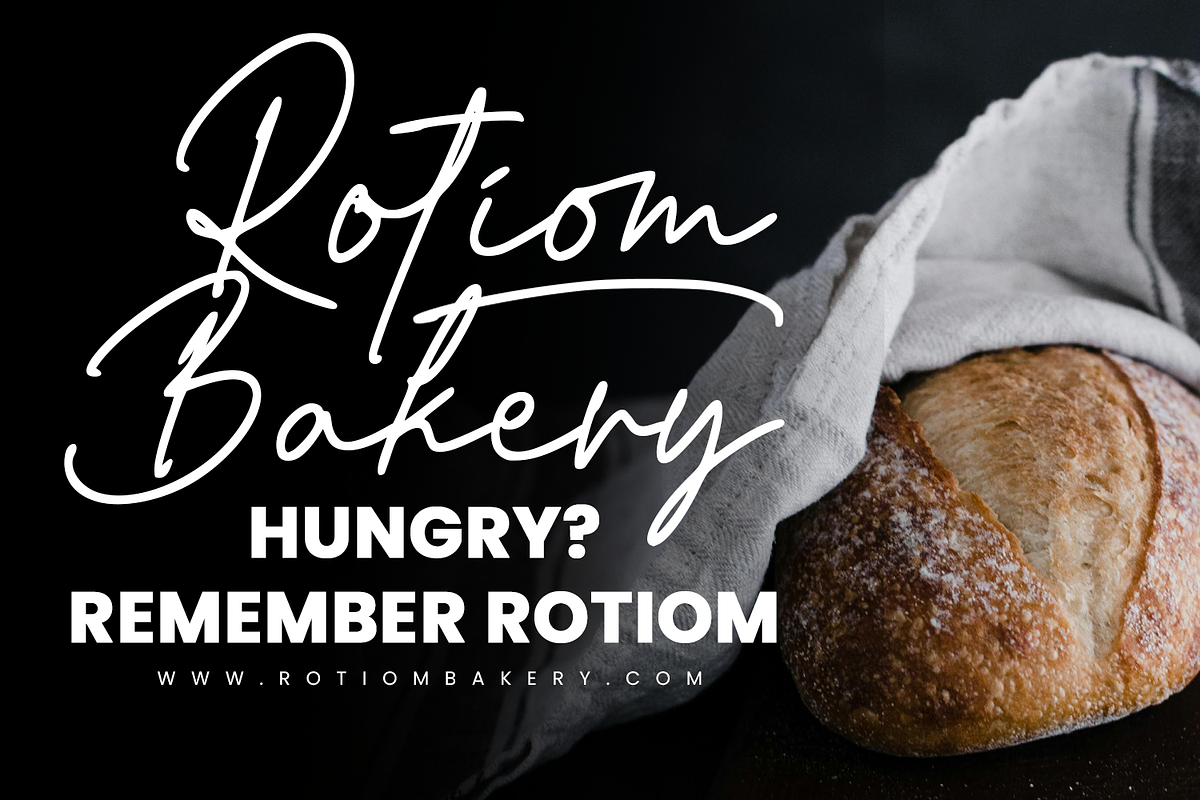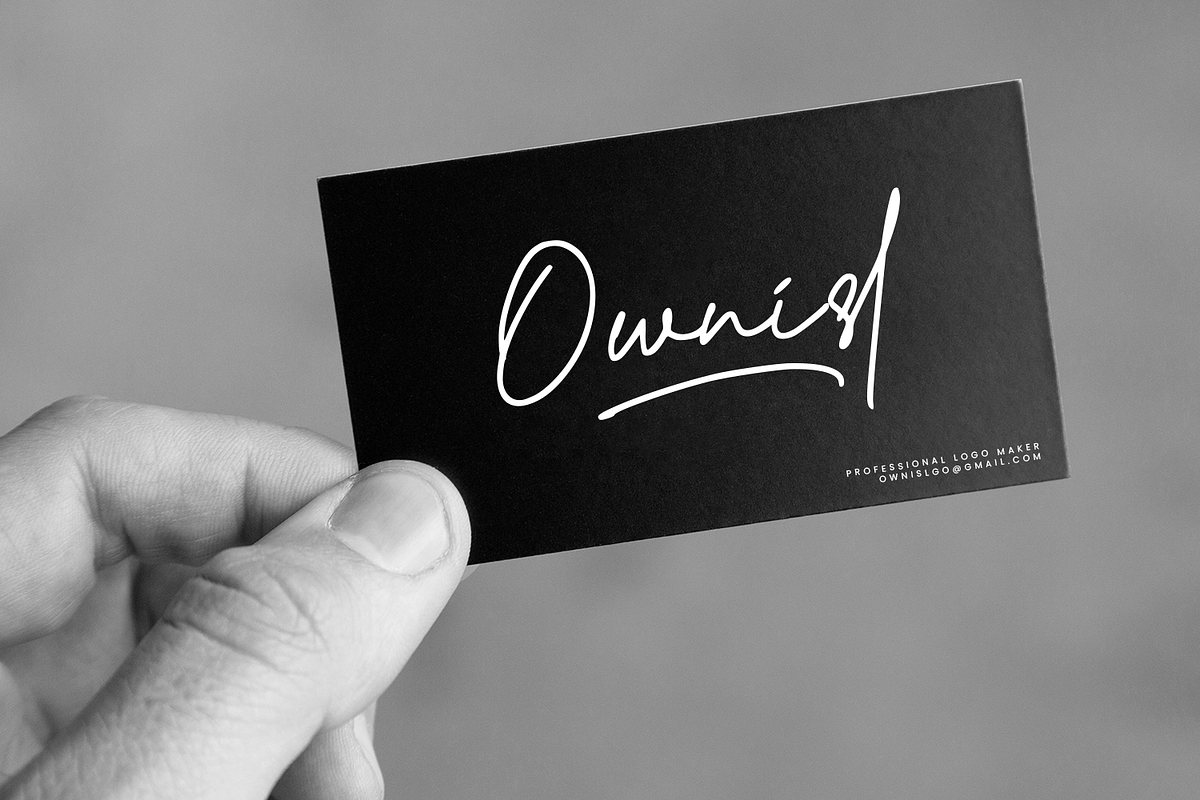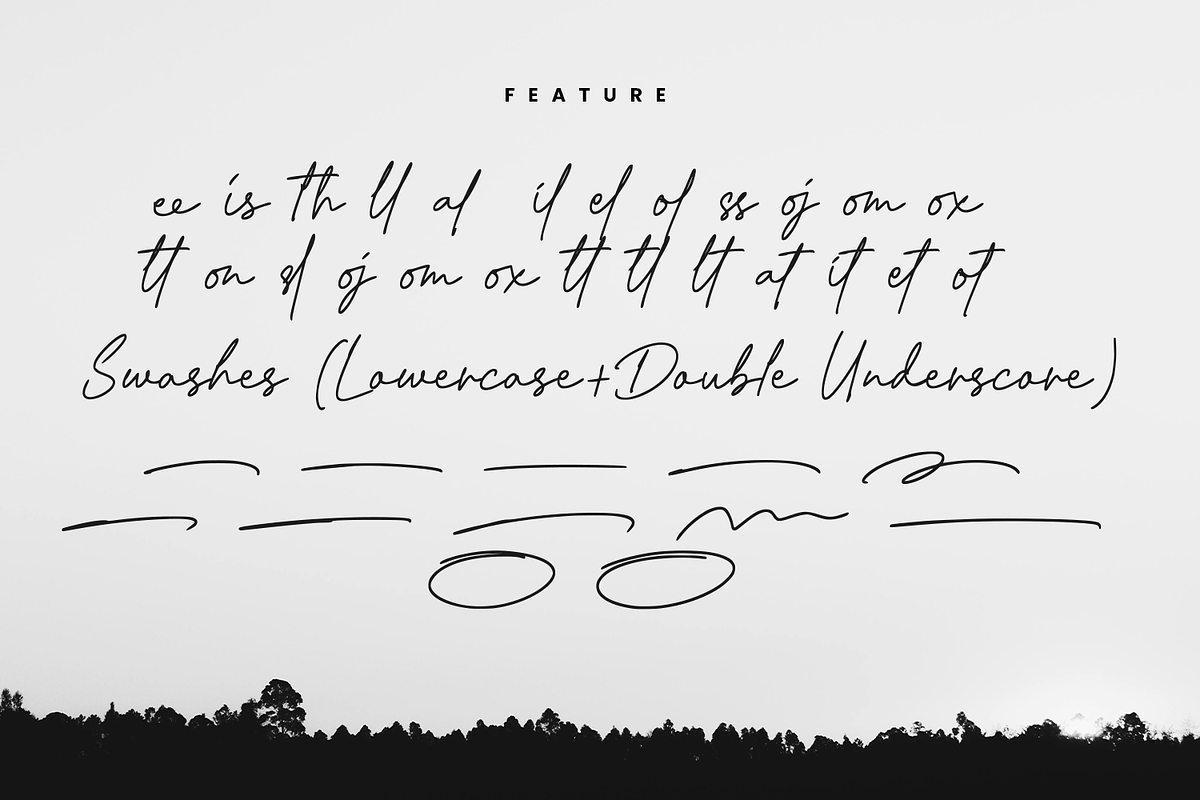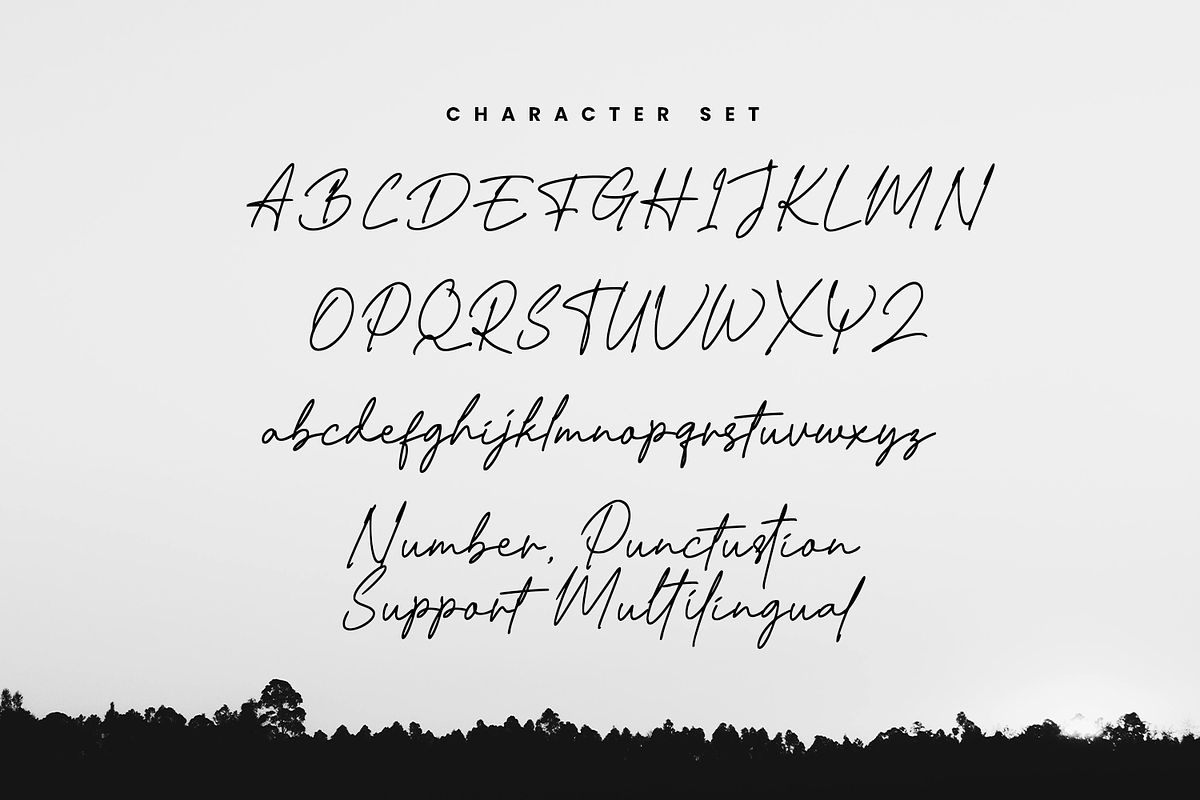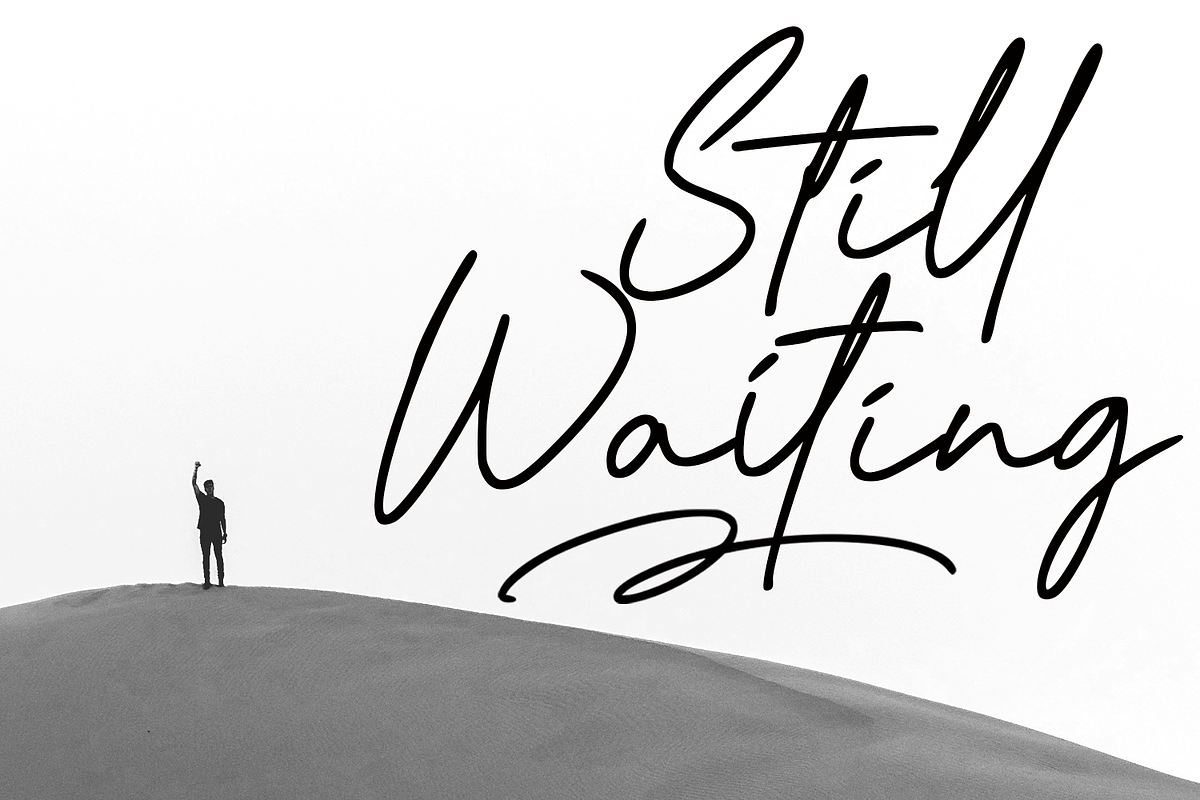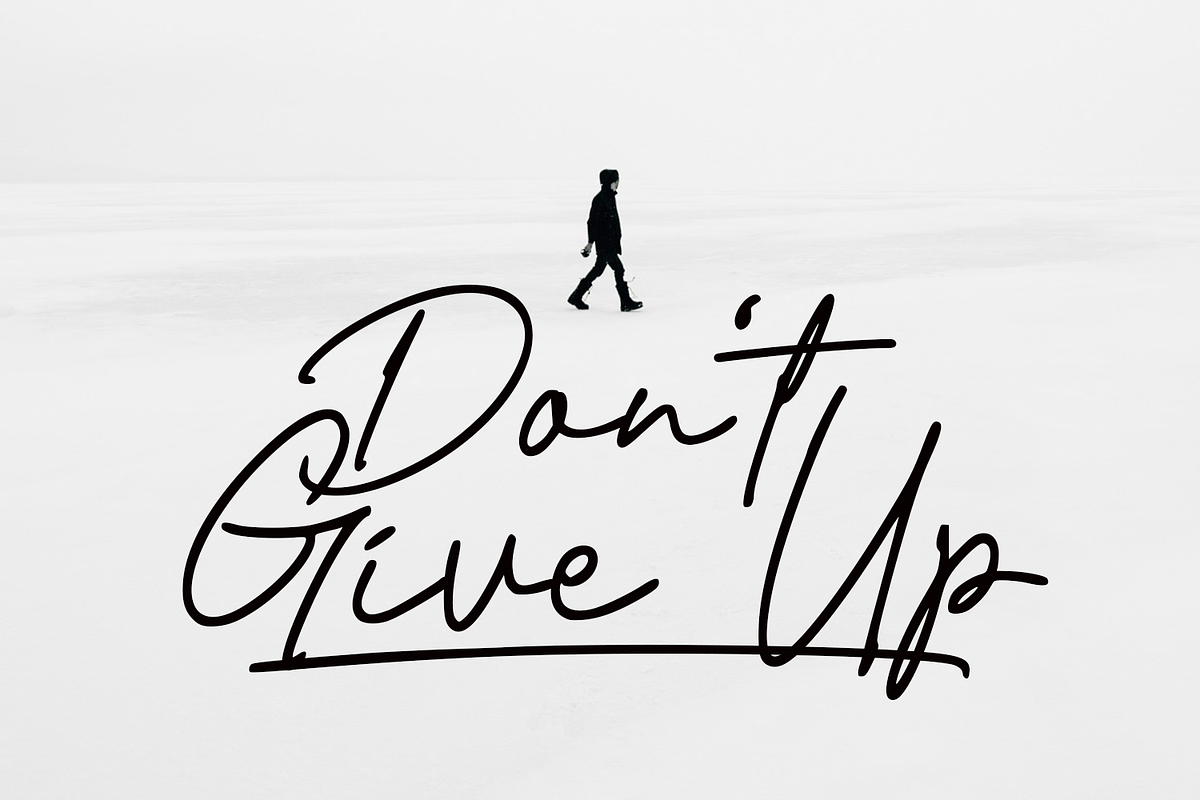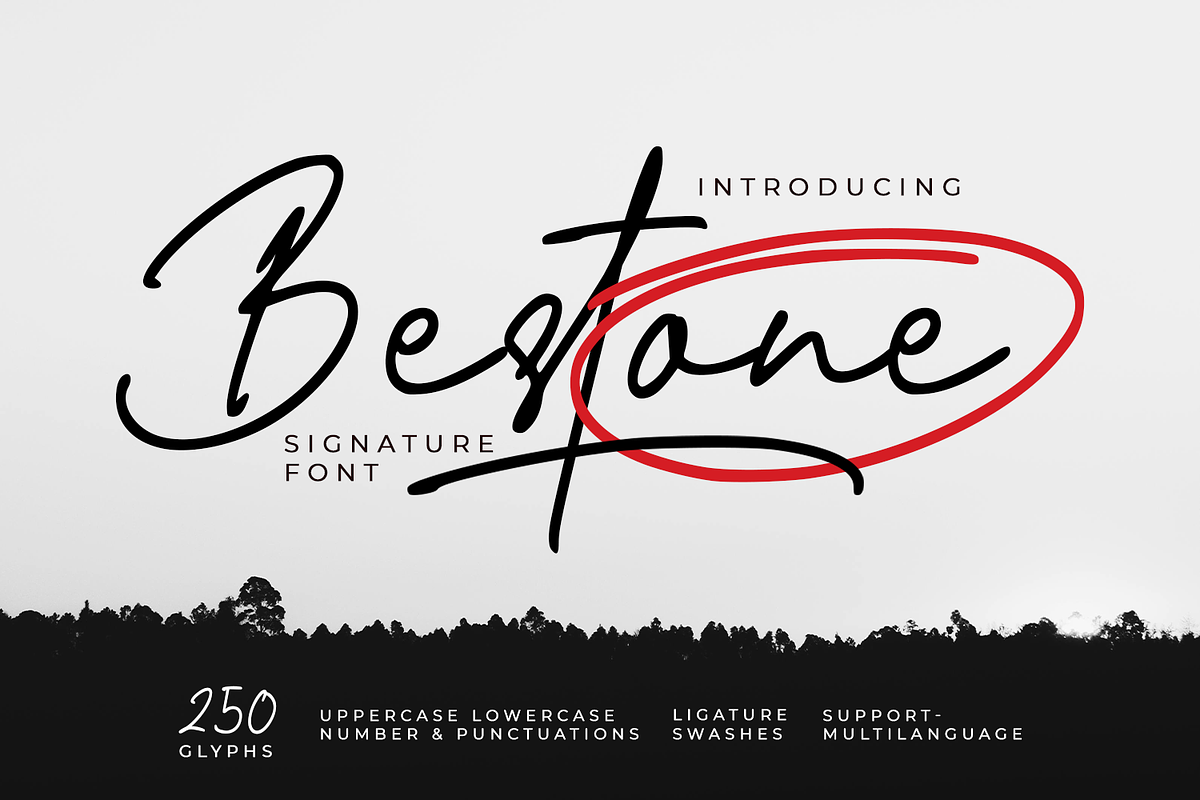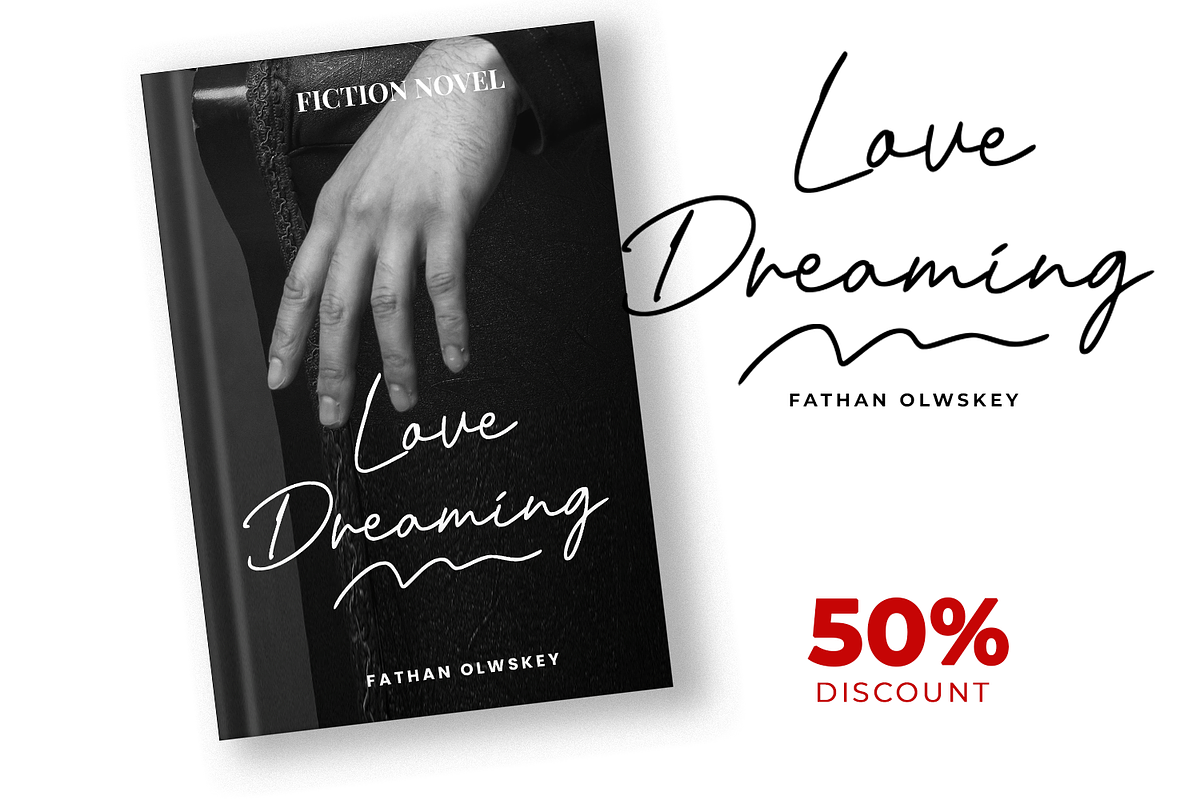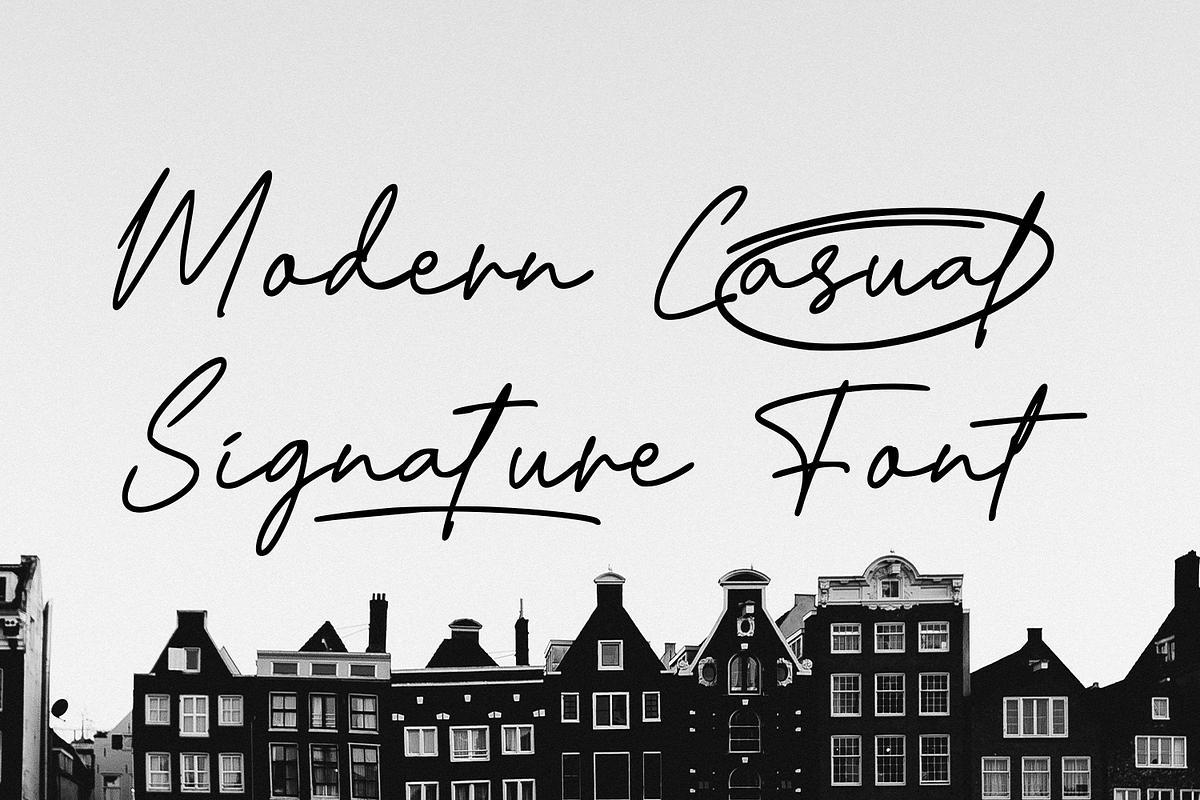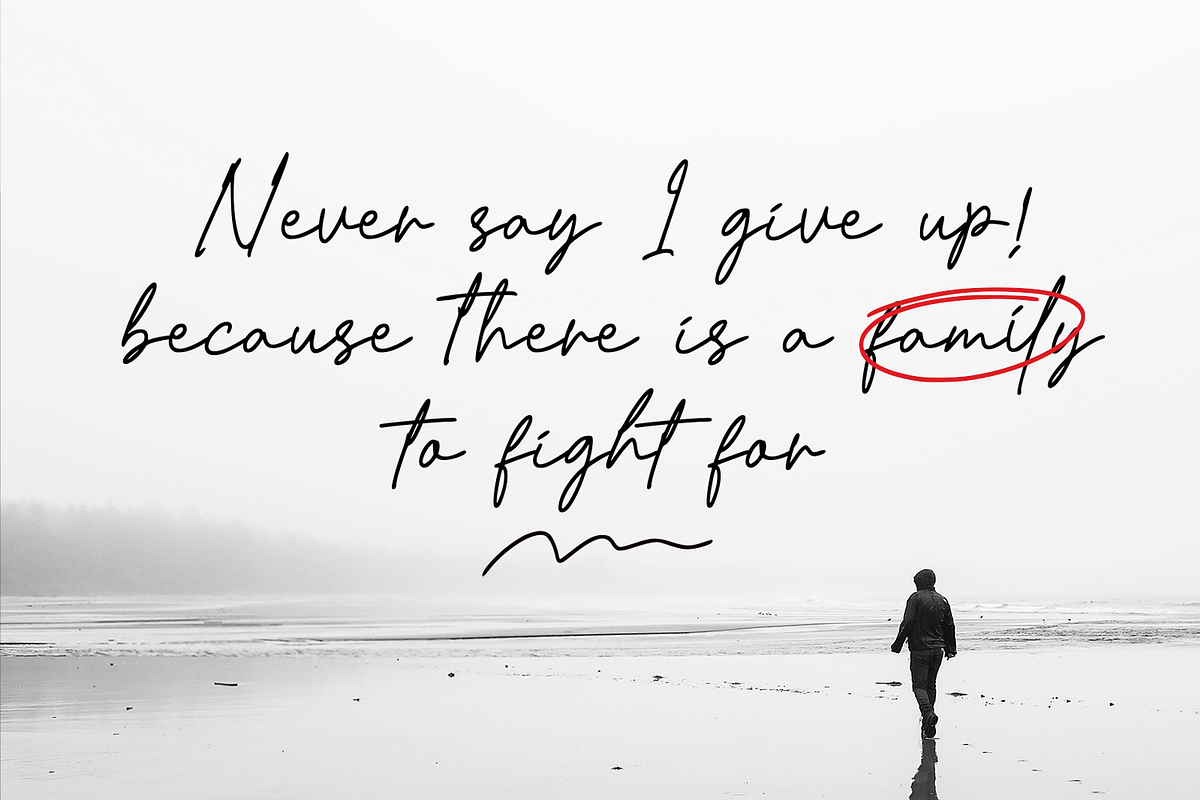
Bestone Signature
Bestone is a signature font, with a simple and casual monoline shape. Natural like handwriting.
Bestone is perfect for branding projects, logos, wedding designs, social media posts, advertisements, product packaging, product designs, labels, photography, watermarks, invitations, stationery, and any project that requires a sense of signature font.
- Font feature
Uppercase, Lowercase, Numerals & Punctuations, Ligature, swash, Multilanguage